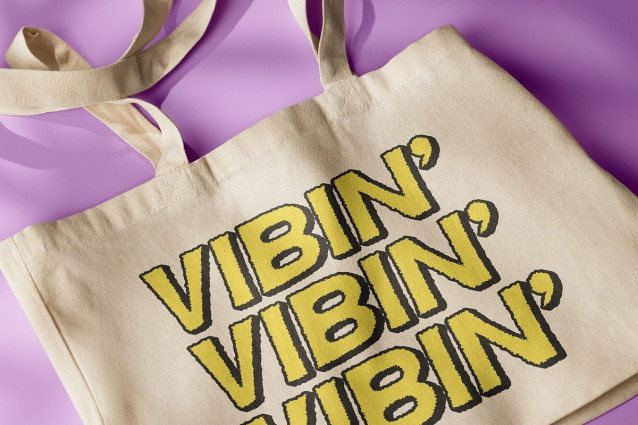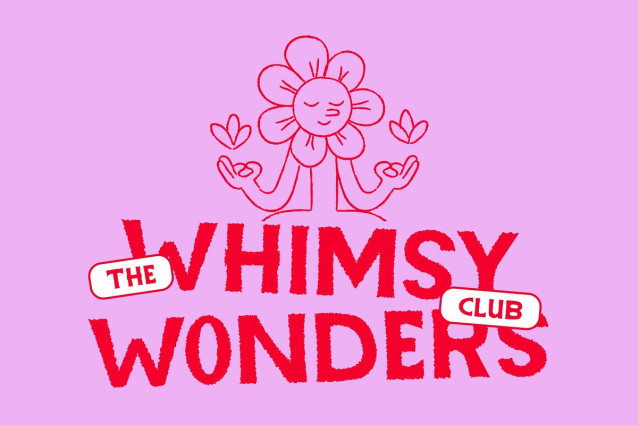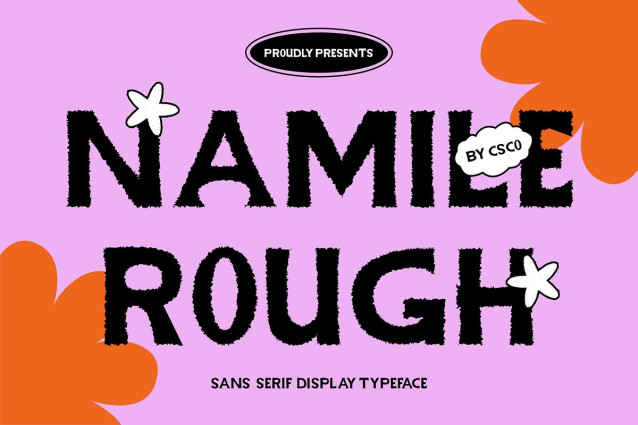
Namile Rough Font is a modern sans-serif font that radiates a joyful and approachable vibe. Its simple, rounded, and highly readable letterforms make it instantly friendly and easy to engage withâideal for designs that need to feel casual, lighthearted, and welcoming.
Rough Texture for Organic Warmth What sets Namile Rough apart is its subtle rough texture, which brings a touch of handmade charm to its clean geometry. The slightly imperfect lines give the font a natural, expressive feel, making it perfect for adding personality and warmth without overwhelming the design. Itâs a beautiful balance between modern minimalism and creative playfulness.
Perfect for Kids, Creativity, and Casual Fun Namile Rough shines in kid-centric projects, playful branding, craft packaging, and fun editorial layouts. Whether youâre designing a childrenâs book cover, a cheerful event poster, or branding for a creative product, this font delivers a tone thatâs bright, inviting, and full of character.
Expressive Yet Approachable Design With its blend of friendly form and artistic texture, Namile Rough is a versatile and expressive typeface that works across various creative fields. Itâs especially well-suited for projects that aim to be personable, joyful, and visually engaging, making every message feel more human and heartfelt.